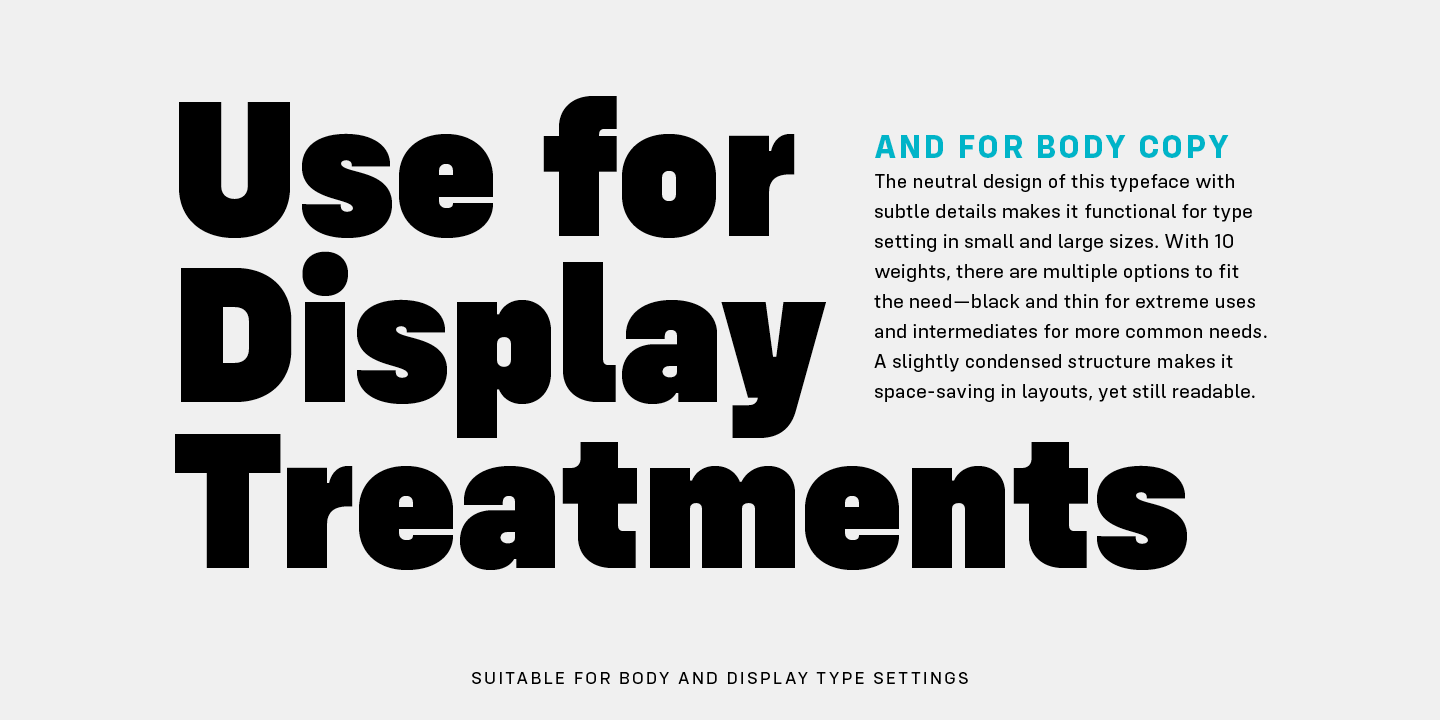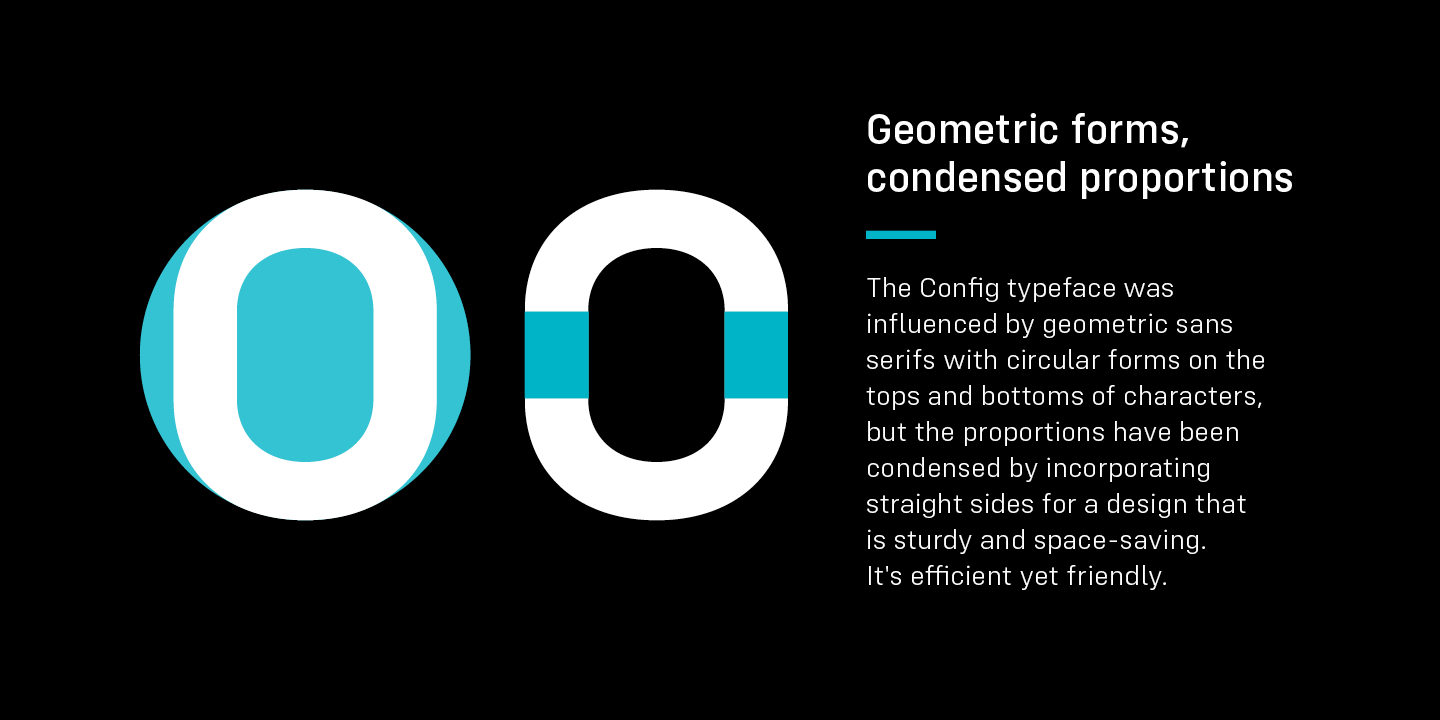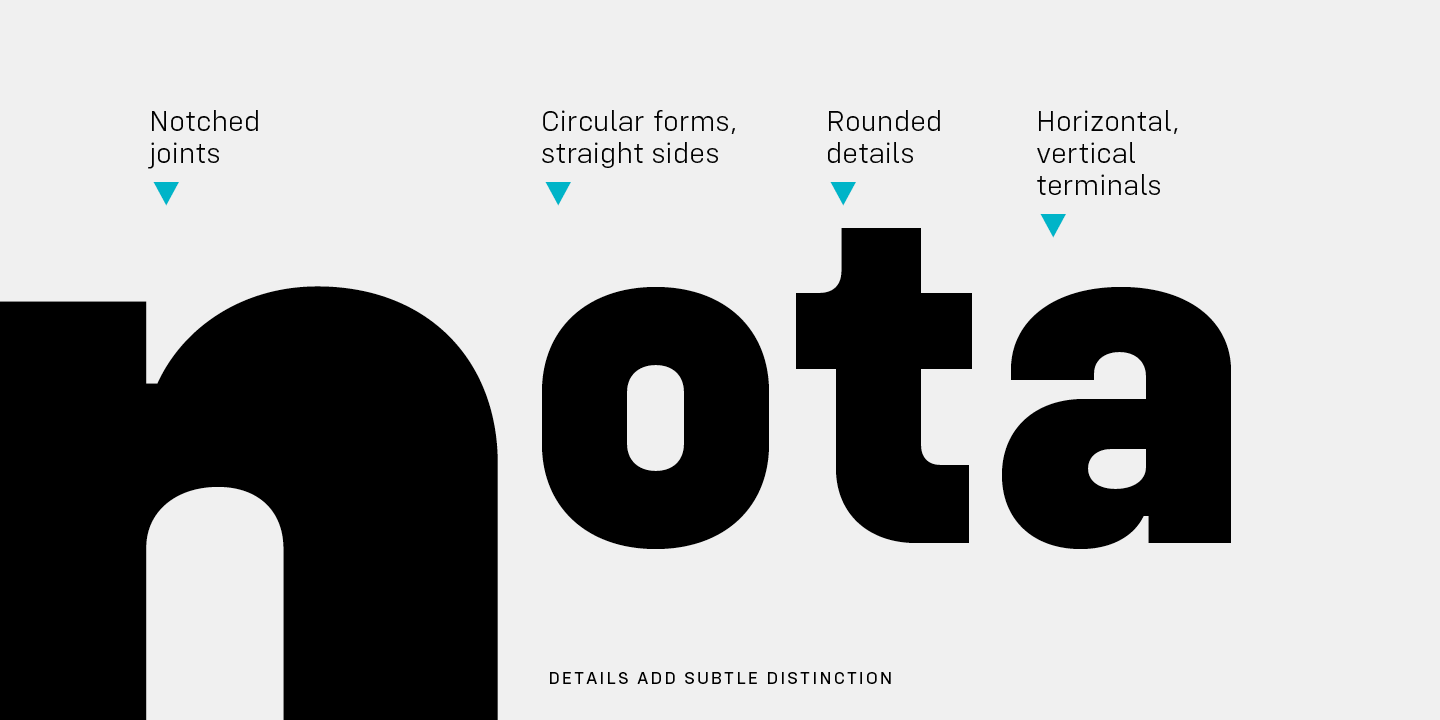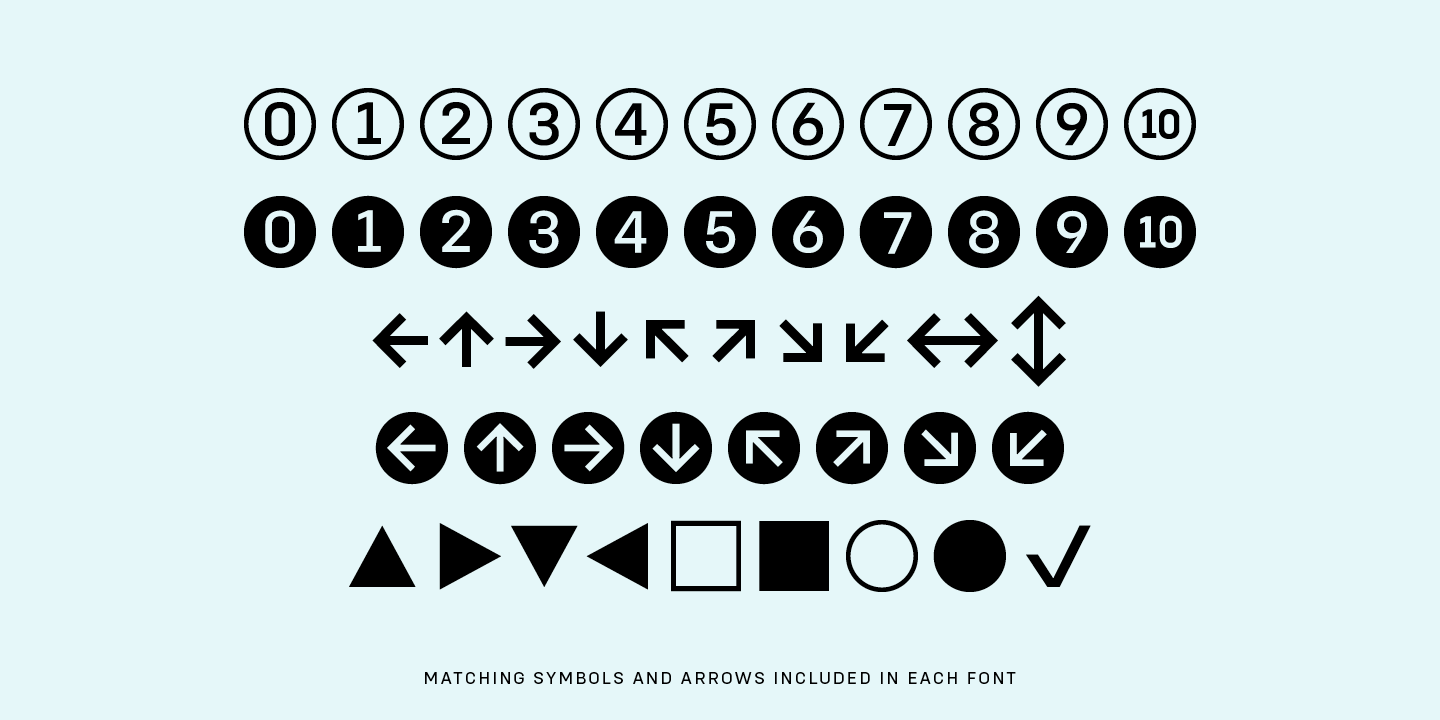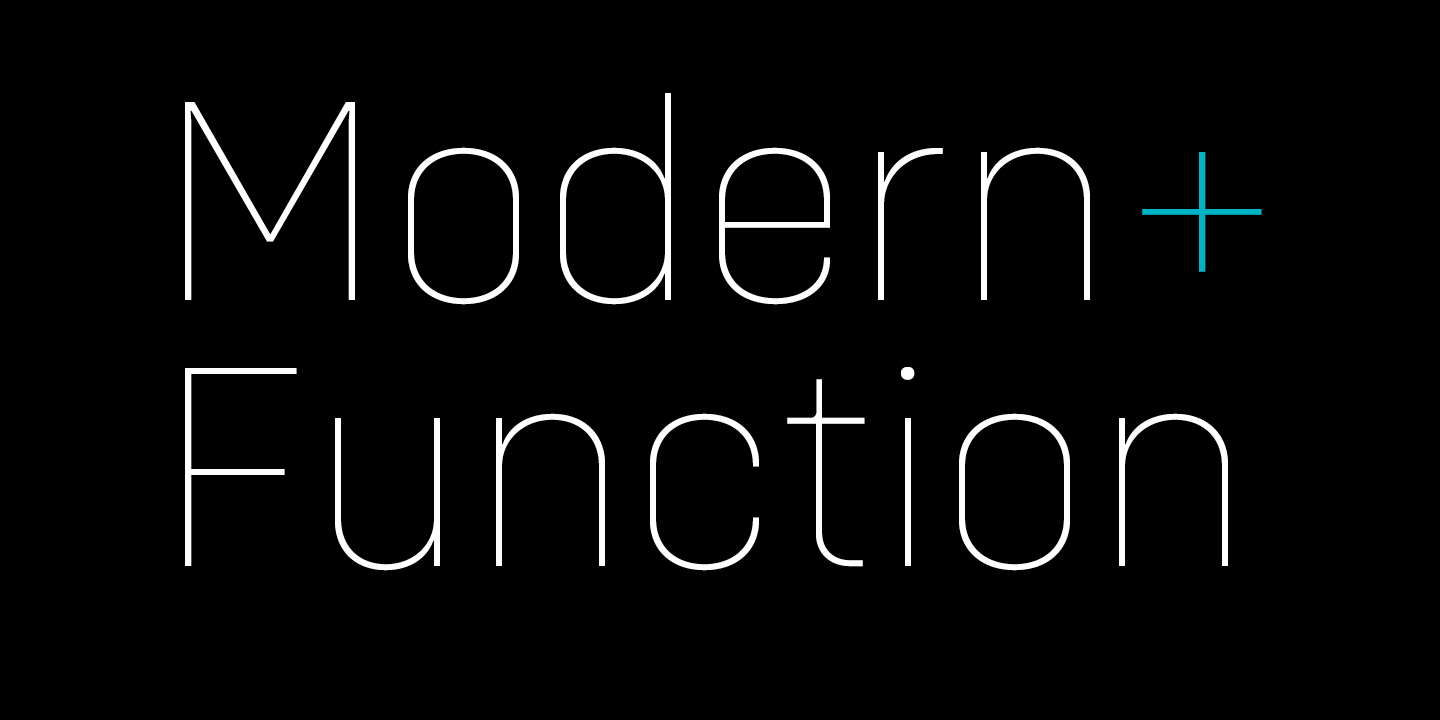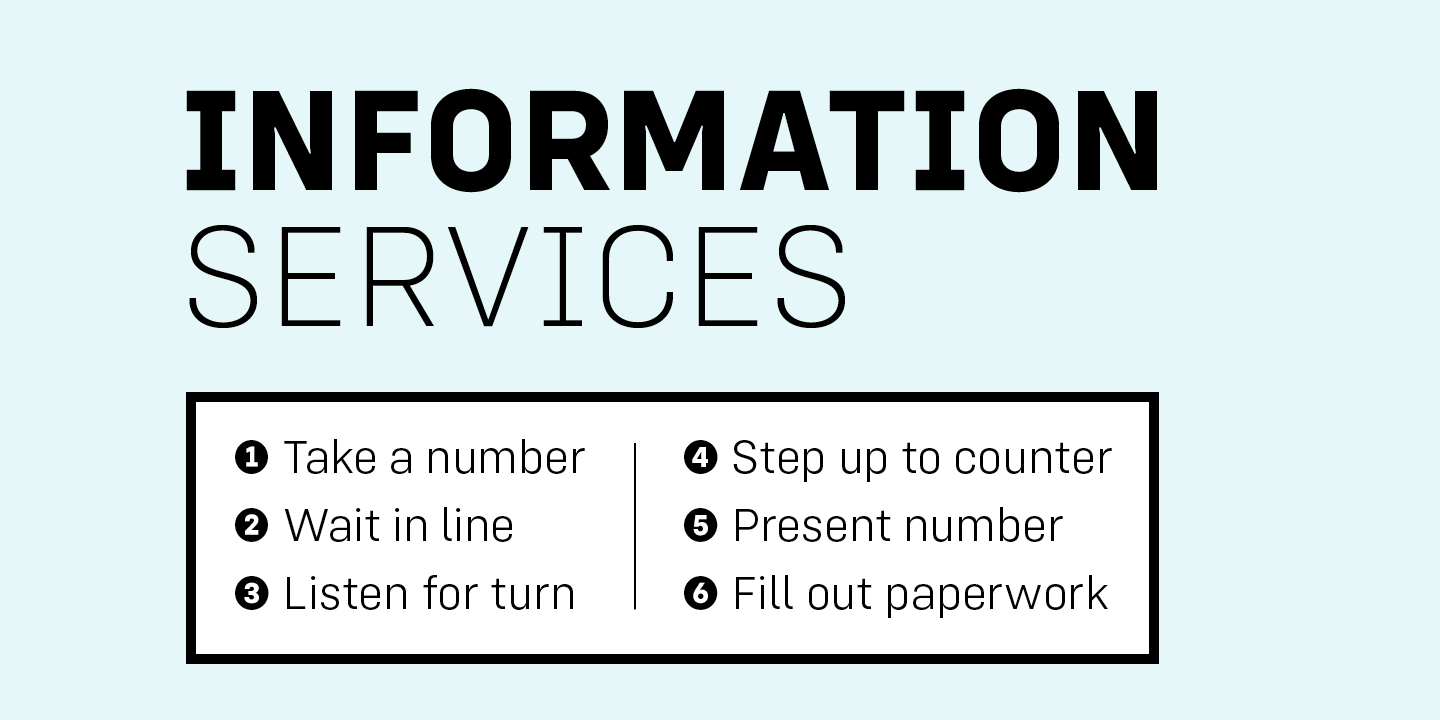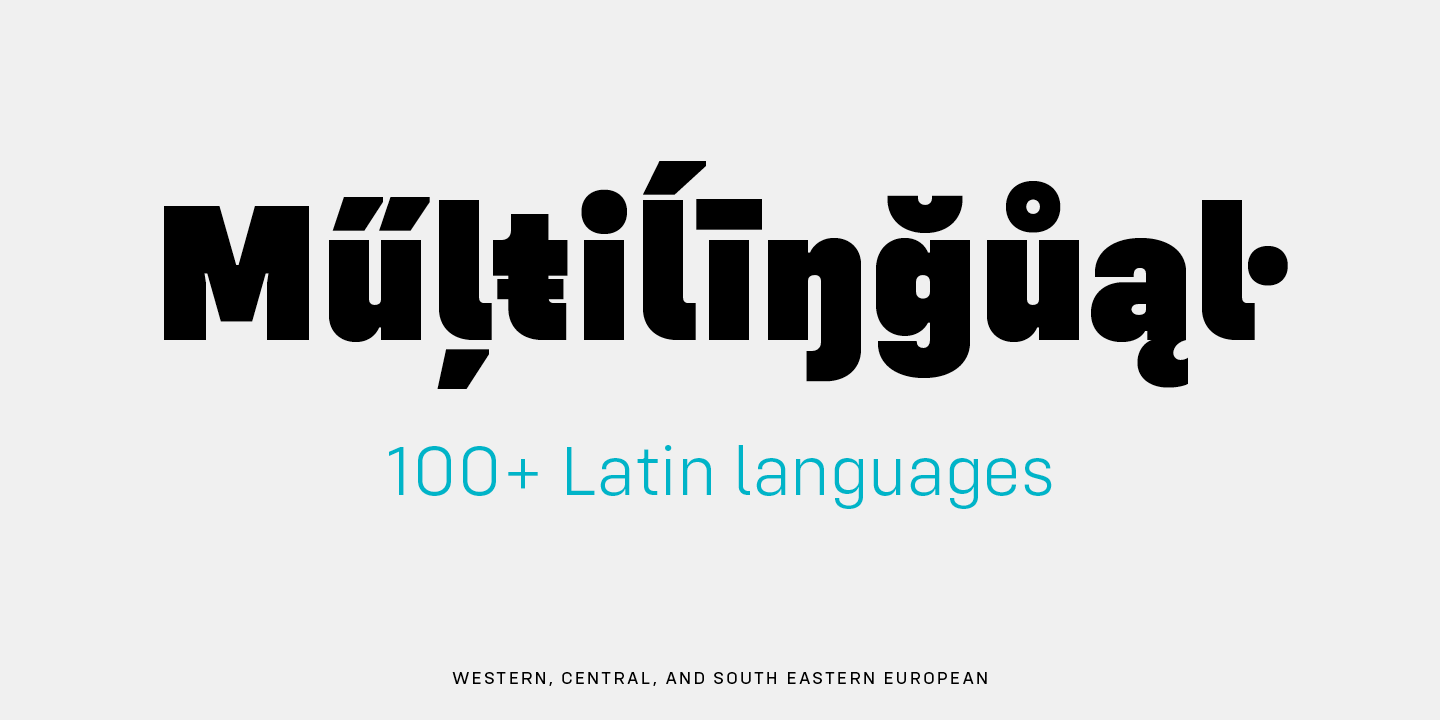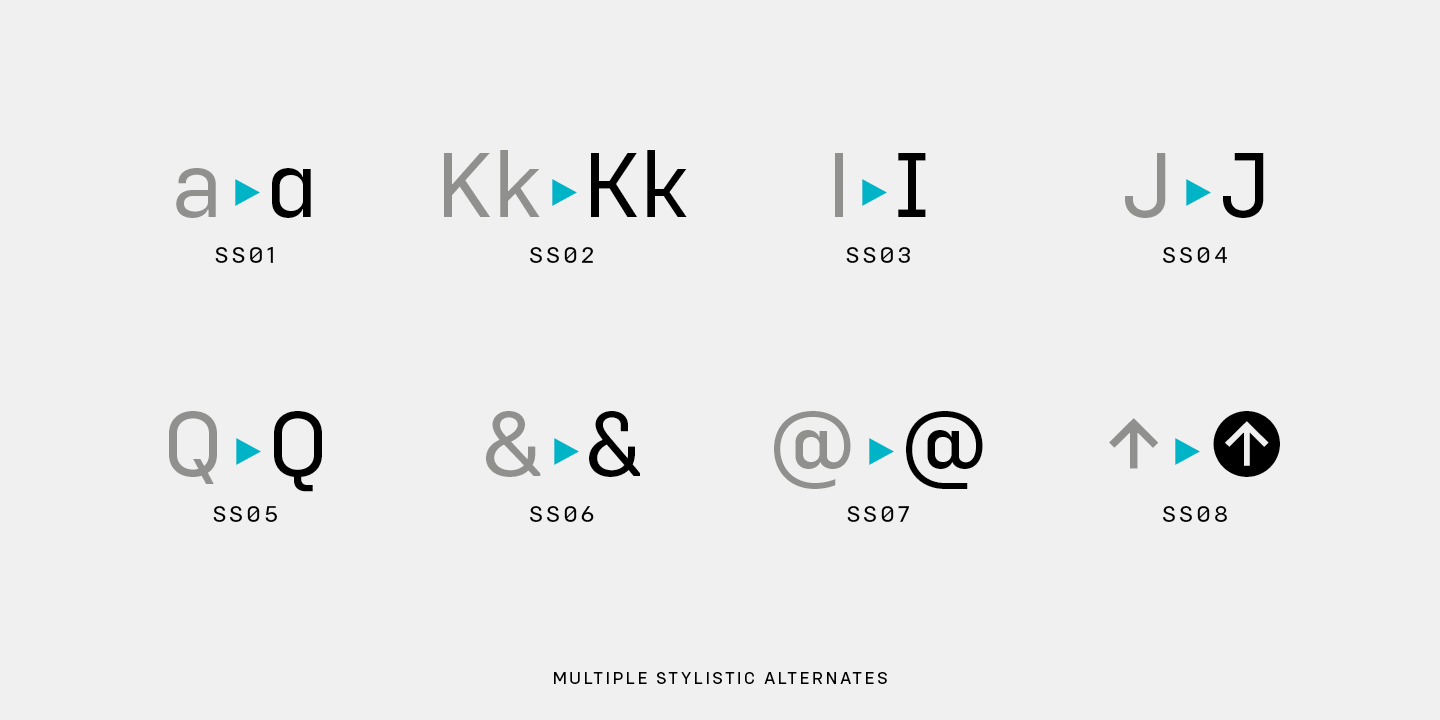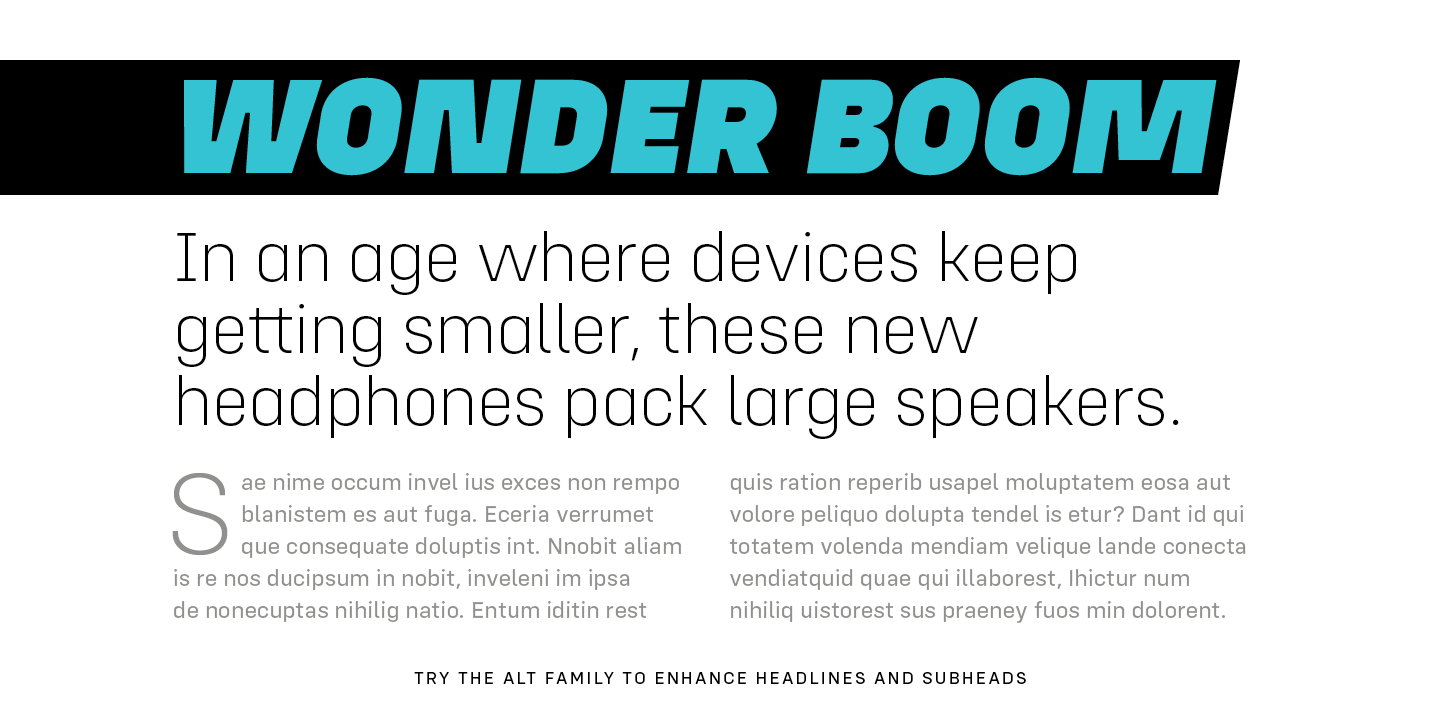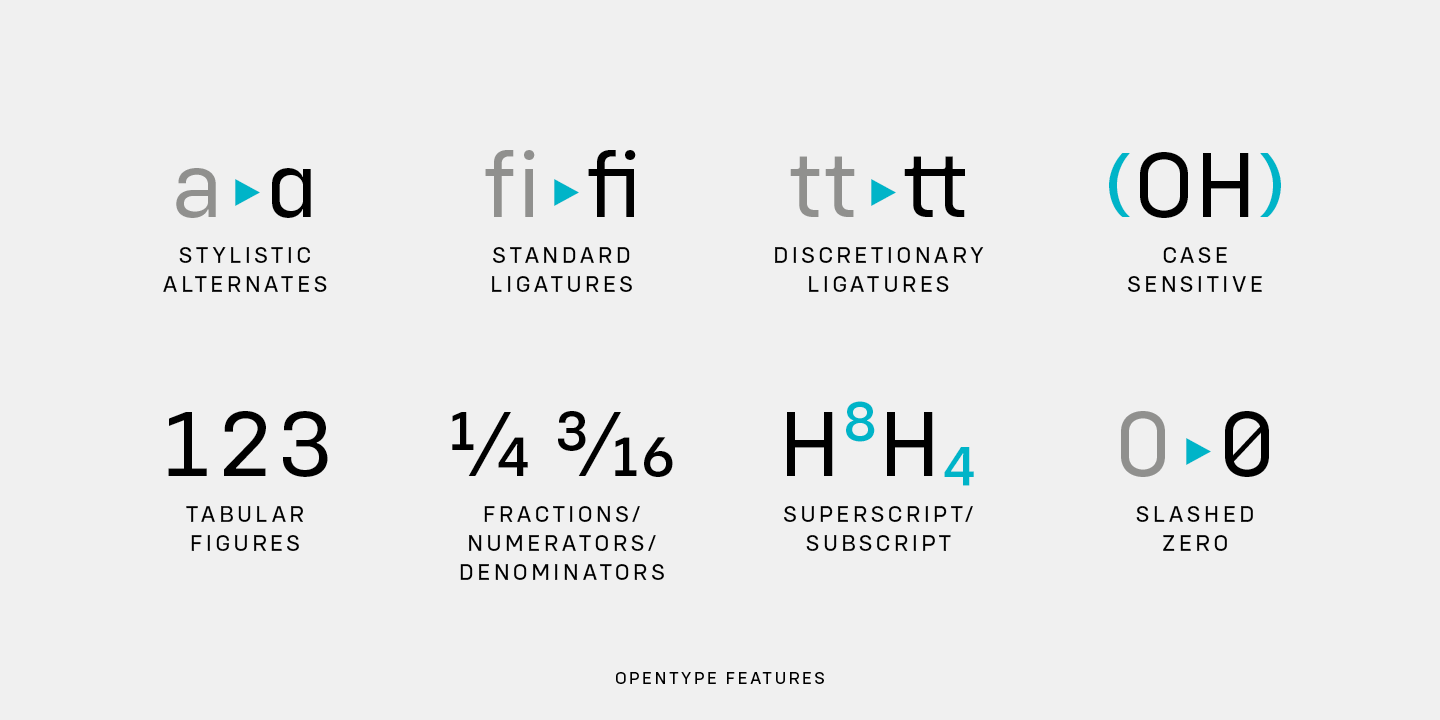
Config is a condensed geometric sans serif family consisting of 40 fonts in 10 weights plus italics. The Config typeface was influenced by geometric sans serifs with circular forms on the tops and bottoms of characters, but the proportions have been condensed by incorporating straight sides for a design that is sturdy and space-saving. It's efficient yet friendly.
The neutral design of this typeface with subtle details makes it functional for type setting in small and large sizes. With 10 weights, there are multiple options to fit the need—black and thin for extreme uses and intermediates for more common needs. Its clean nature allows it to be readable at small sizes, but the touch of character—as seen in the notched joints (like the n and u), rounded details (like the l and t), and horizontal/vertical terminals (like the a and e)—make it interesting at large display sizes.
Also part of this complete family is an Alt family with extended notch characters (like the N, Y, w, and many others). It is ideal for setting headlines and subheads in to add interest and get attention. It pairs perfectly with the Normal family for supporting text.
Config includes lots of OpenType features, as well as symbols to enhance your typography: Multiple stylistic alternates (8 stylistic sets). Standard and discretionary ligatures. Case-sensitive punctuation for All Caps. Tabular figures. Fractions, numerators, denominators. Superscript, subscript. Slashed zero. Arrows, circled numbers, geometric shapes.
With over 600 glyphs, this font has extensive Latin language support (100+ Latin languages) for Western, Central, and South Eastern European.